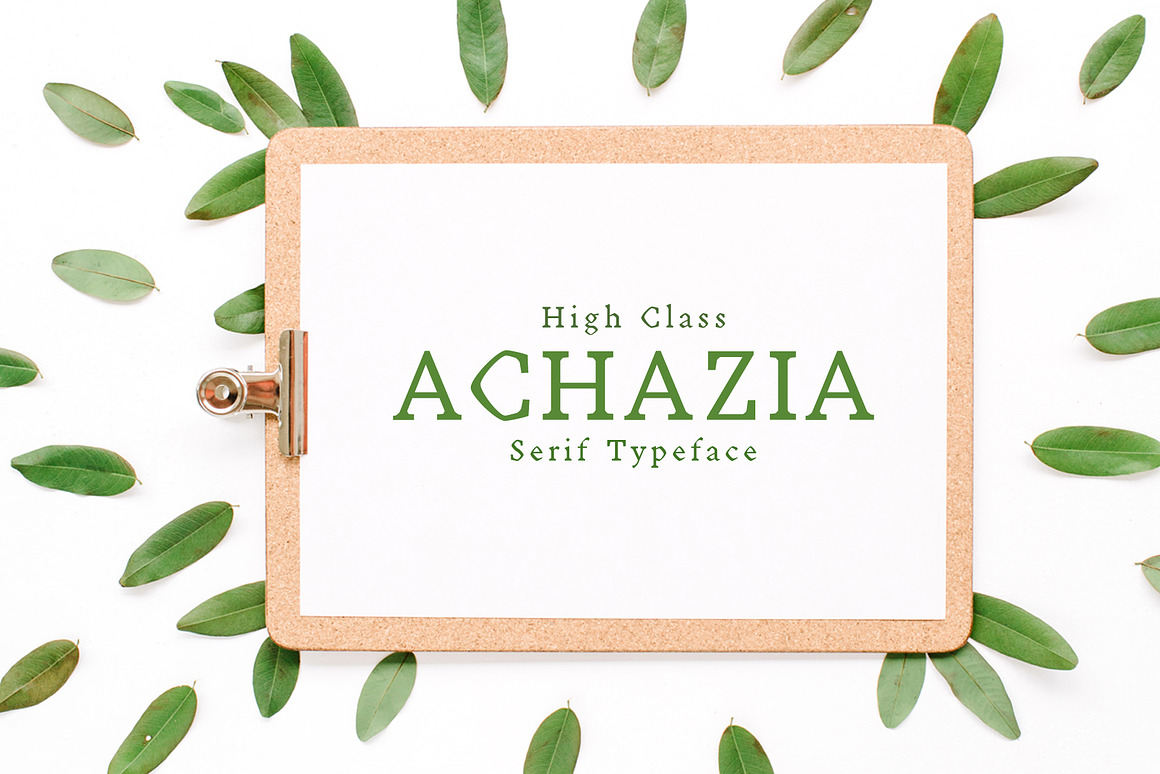
Achazia Serif Font Family Pack
Achazia Serif Font Family Pack is perfect for literary publications, academic journals, historical documentaries, traditional book covers, scholarly articles, classical music programs, heritage brand communications, and distinguished editorial content.
Achazia Serif Font Family Pack is exciting because it embodies scholarly elegance with meticulously crafted serif details that convey intellectual authority and timeless sophistication. Its distinguished letterforms and classical proportions create an atmosphere of academic prestige and cultural refinement.
Achazia Serif Font Family Pack family includes light, regular, medium, and bold weights with matching italic variations, offering designers eight expertly crafted font styles for creating authoritative and intellectually appealing typographic hierarchies.
Achazia Serif Font Family Pack Free Download delivers premium typography that establishes immediate credibility and intellectual gravitas. This exceptional typeface collection demonstrates masterful craftsmanship through its refined serif construction and carefully balanced character proportions that enhance sustained reading comfort. The font's scholarly heritage makes it particularly effective for educational institutions, publishing houses, cultural organizations, and professional services requiring authoritative visual communication.
Academic professionals consistently select Achazia Serif Font Family Pack for its ability to convey expertise and intellectual depth. Its classical foundation provides familiar reading comfort while sophisticated details ensure contemporary relevance in both digital and print applications. The font's dignified presence works magnificently in research publications, conference materials, and institutional branding where credibility and tradition are paramount.
The Achazia Serif Font Family Pack download package includes comprehensive character sets with academic symbols, mathematical notation, and extensive punctuation marks essential for scholarly publications. This thorough coverage ensures professional results in complex academic documents, multilingual research papers, and technical publications. The font's consistent spacing and careful kerning optimization create polished layouts that enhance reader comprehension and scholarly presentation.
Educational design teams appreciate Achazia Serif Font Family Pack's versatility in creating respected institutional materials that command attention and respect. Its timeless appeal transcends academic trends while maintaining the gravitas required for serious intellectual discourse, making it an invaluable asset for organizations seeking to establish lasting authority through superior typographic communication.